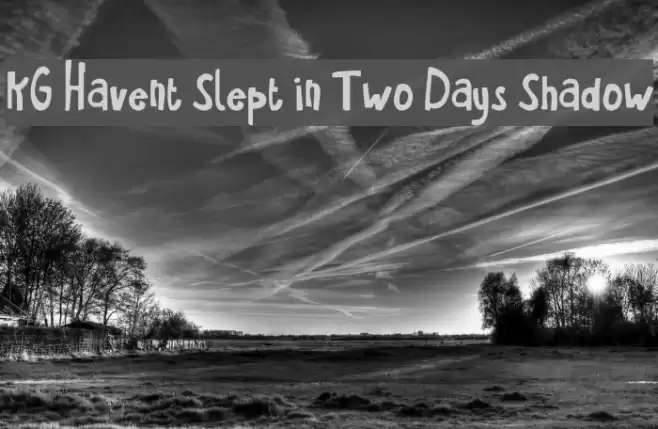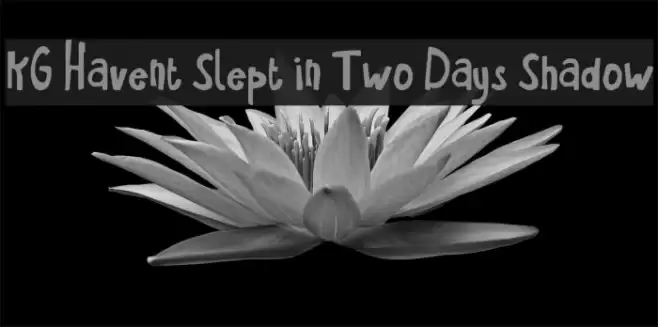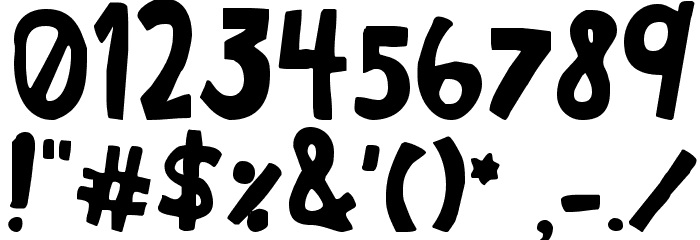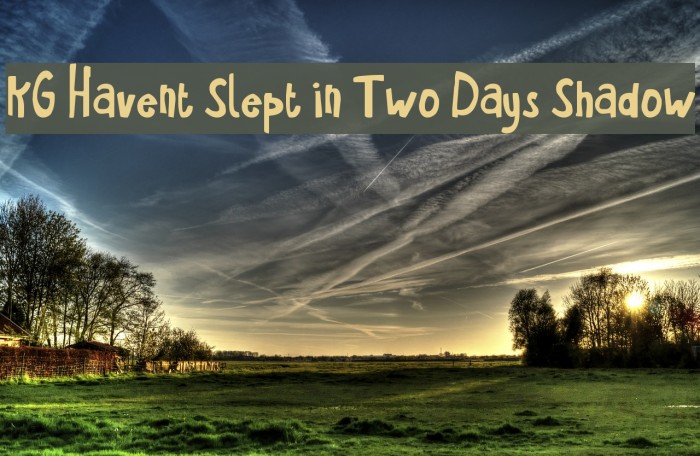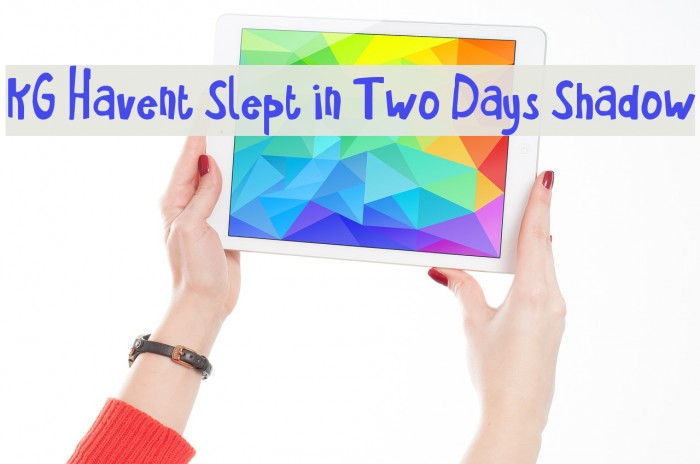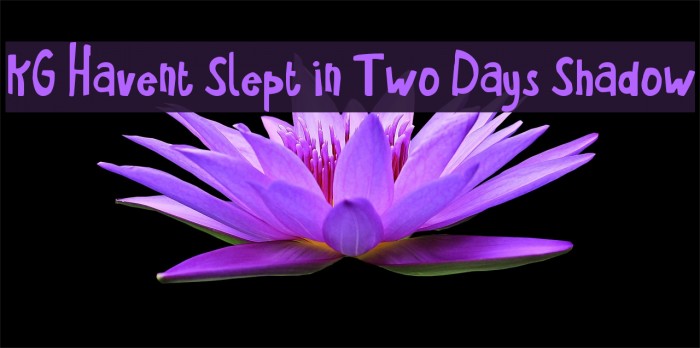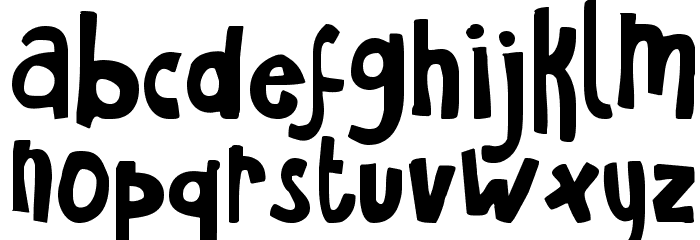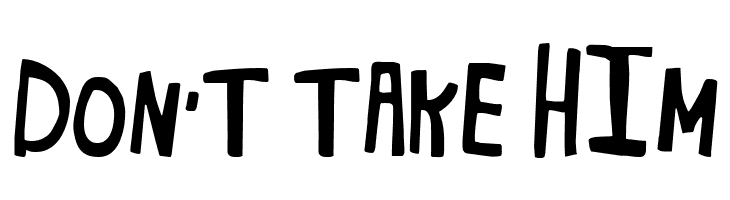
KG Havent Slept in Two Days Shadow Font
KG Havent Slept in Two Days Shadow Description
This playful and quirky font features a hand-drawn, uneven style that gives it a whimsical and casual appearance. The letters are bold and slightly irregular, with varying widths and heights that add to its charm. The font includes both uppercase and lowercase letters, numbers, and a variety of special characters. Its unique, shadowed look makes it stand out, perfect for designs that require a fun and informal touch. The strokes are thick and consistent, providing a strong presence on the page.
A playful, hand-drawn font with bold, irregular characters and a whimsical style from Uncategorized fonts.
- Proposed Projects: Ideal for children's books, playful posters, greeting cards, and casual branding projects.